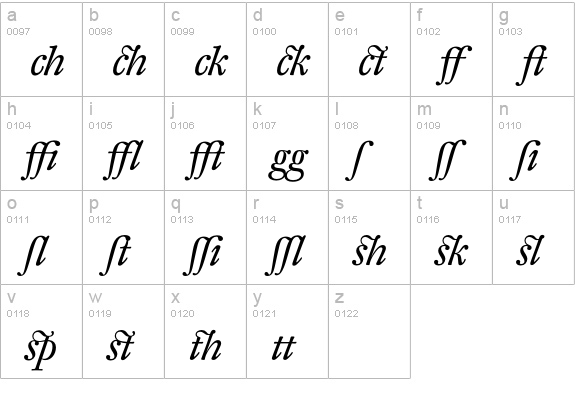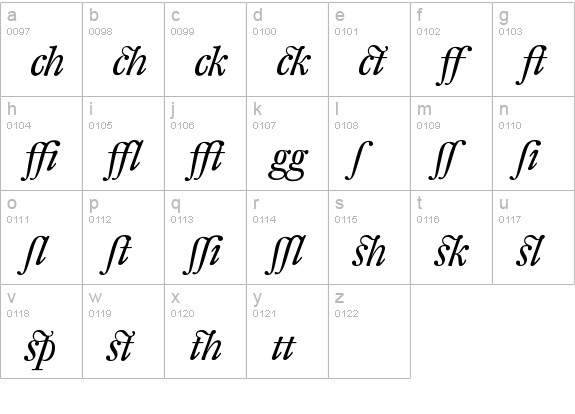
DTL Fleischmann T Italic Alt is a distinctive, italic variant in the DTL typeface family \xE2\x80\x94 well suited to design and typography projects.
The DTL Fleischmann T Italic Alt font embodies elegance and sophistication with its graceful italic style. This versatile typeface exudes a sense of timeless beauty, making it perfect for adding a touch of class to any design project. The delicate curves and slanted angles of the letters create a sense of movement and fluidity, drawing the eye across the page with a sense of grace and charm. What makes this font even more appealing is that it is available for free download at FontsMarket.com. This means that you can easily access this exquisite typeface and use it in your projects without any cost. Whether you're working on a branding project, a website design, or a print layout, the DTL Fleischmann T Italic Alt font is sure to elevate your work to new heights of sophistication and style. Download it today and add a touch of elegance to your designs.